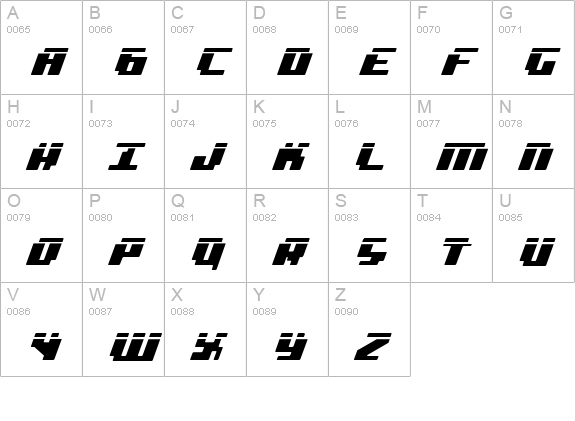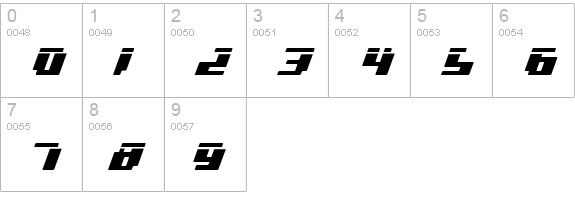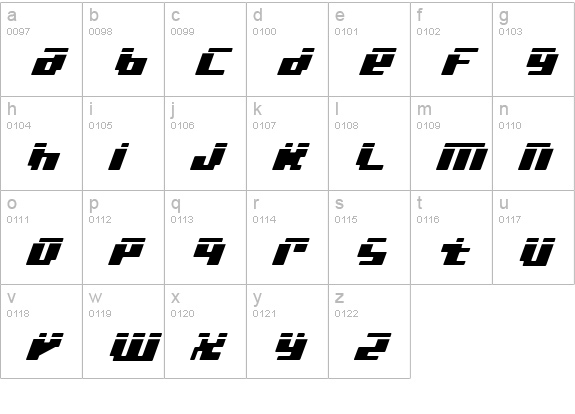
bad robot italic laser is a distinctive, italic variant in the bad typeface family \xE2\x80\x94 well suited to design and typography projects.
Introducing the *Bad Robot Laser* font, a futuristic and edgy typeface that exudes a robotic aesthetic with a touch of rebellion. This font features sharp lines and intricate details that give off a high-tech vibe, perfect for projects that aim to make a bold statement. The laser-like quality of the font adds a dynamic and energetic feel to any design, making it ideal for sci-fi themes, gaming graphics, and tech-related projects. Best of all, the *Bad Robot Laser* font is available for *free* download at FontsMarket.com. So whether you're a graphic designer looking to add a futuristic twist to your creations or a content creator wanting to enhance your digital presence, this font is a must-have in your collection. Don't miss out on the opportunity to elevate your designs with this cutting-edge typeface that is both striking and versatile. Download the *Bad Robot Laser* font today and let your creativity shine!